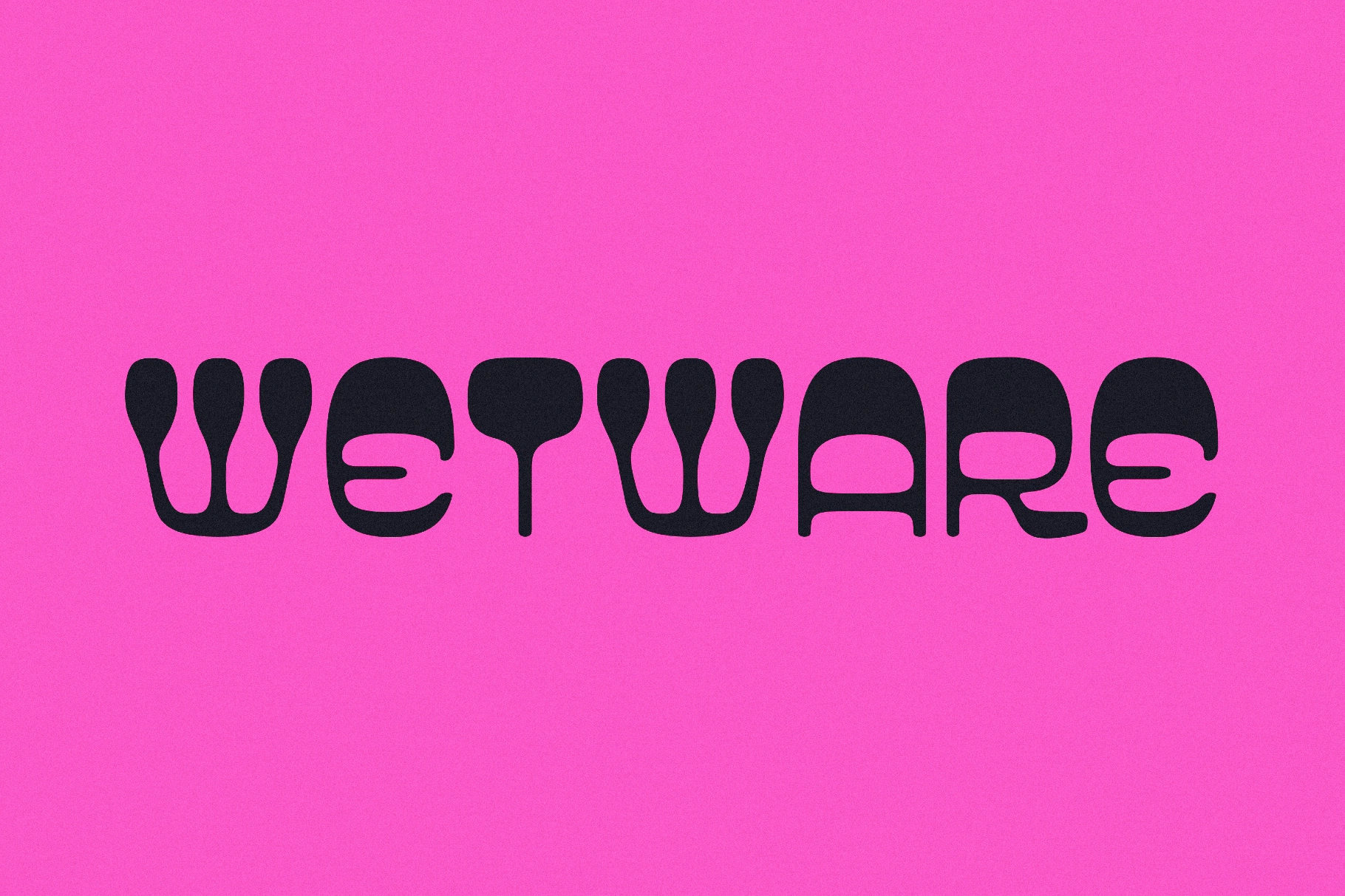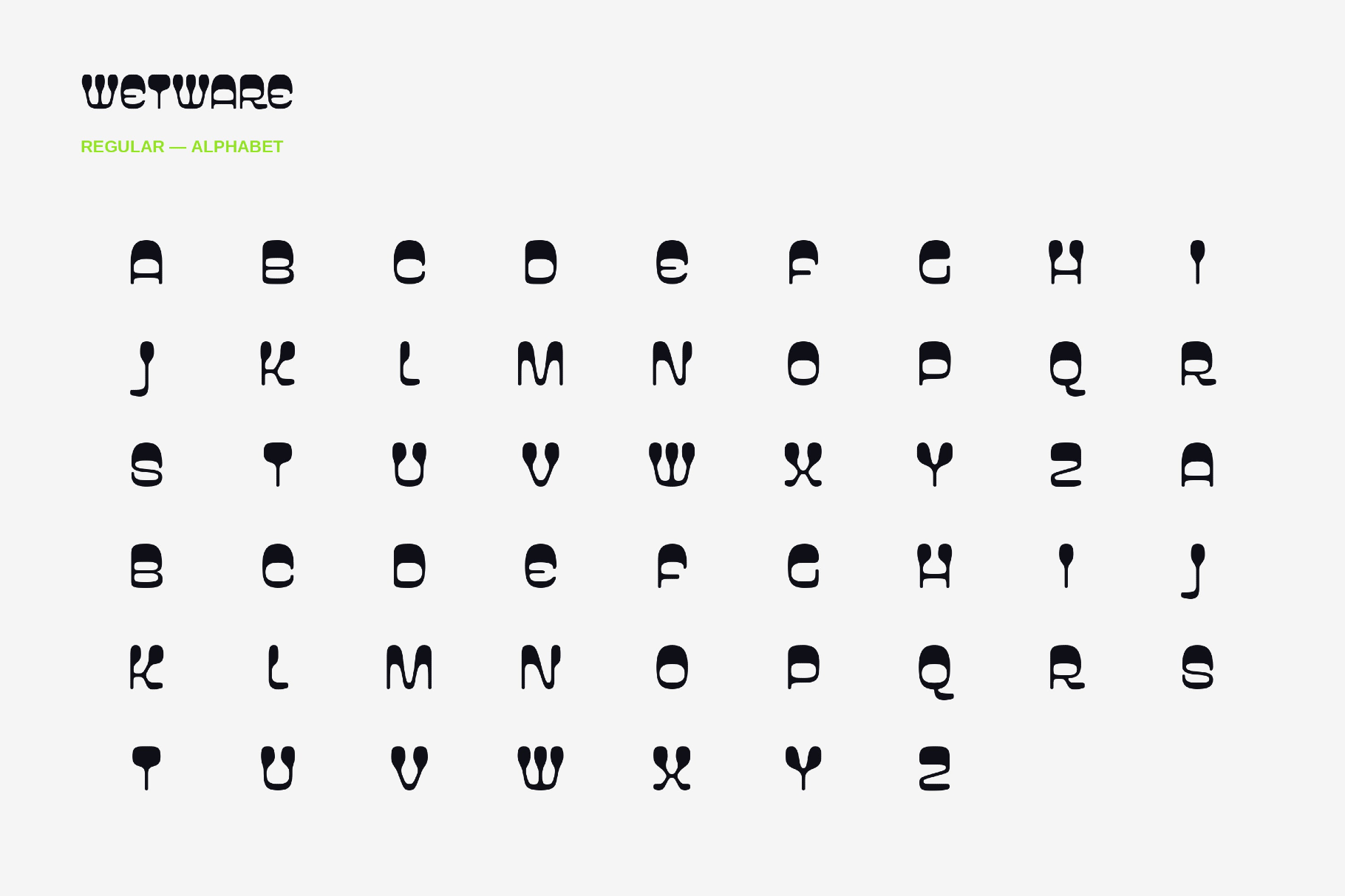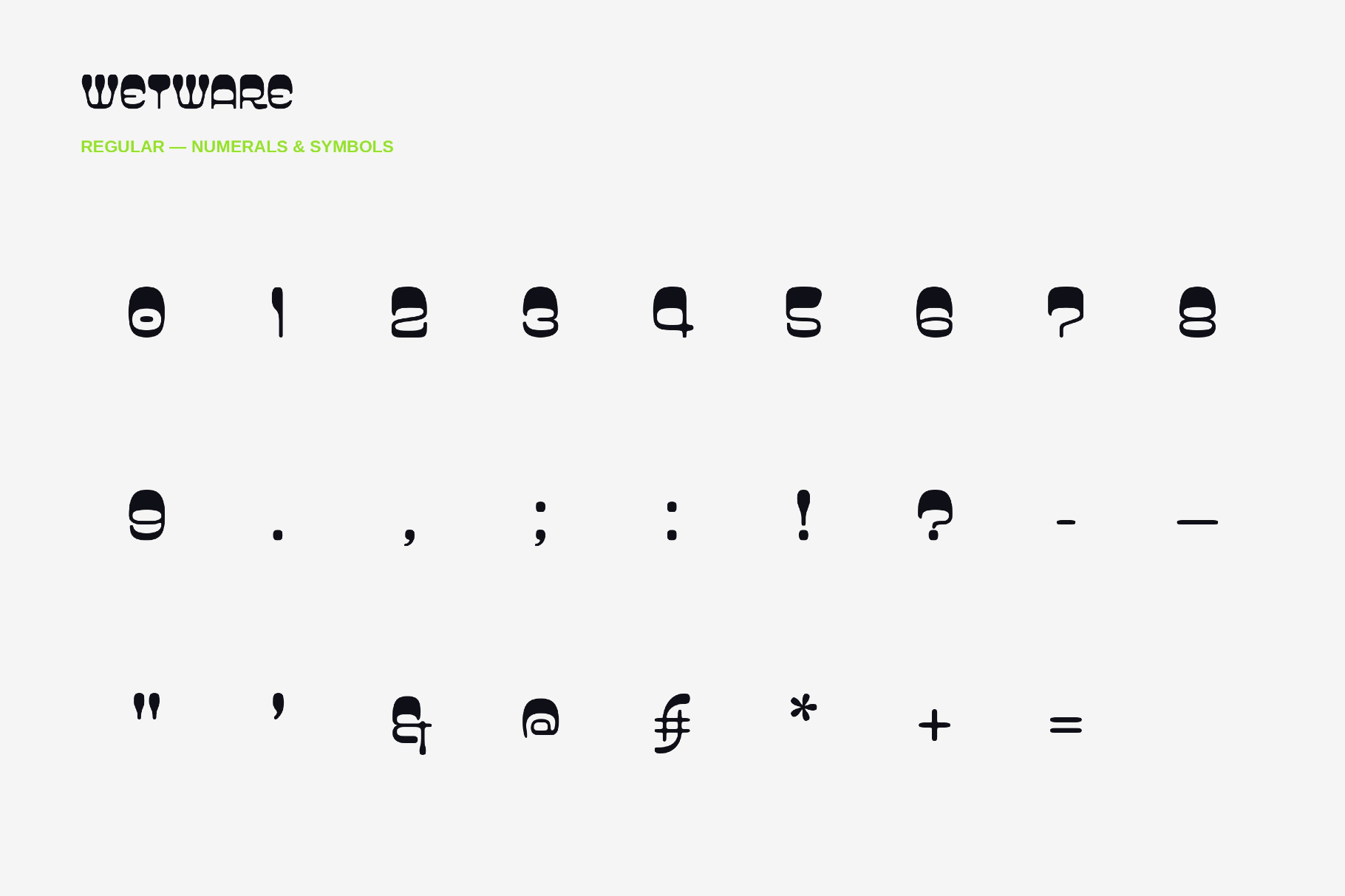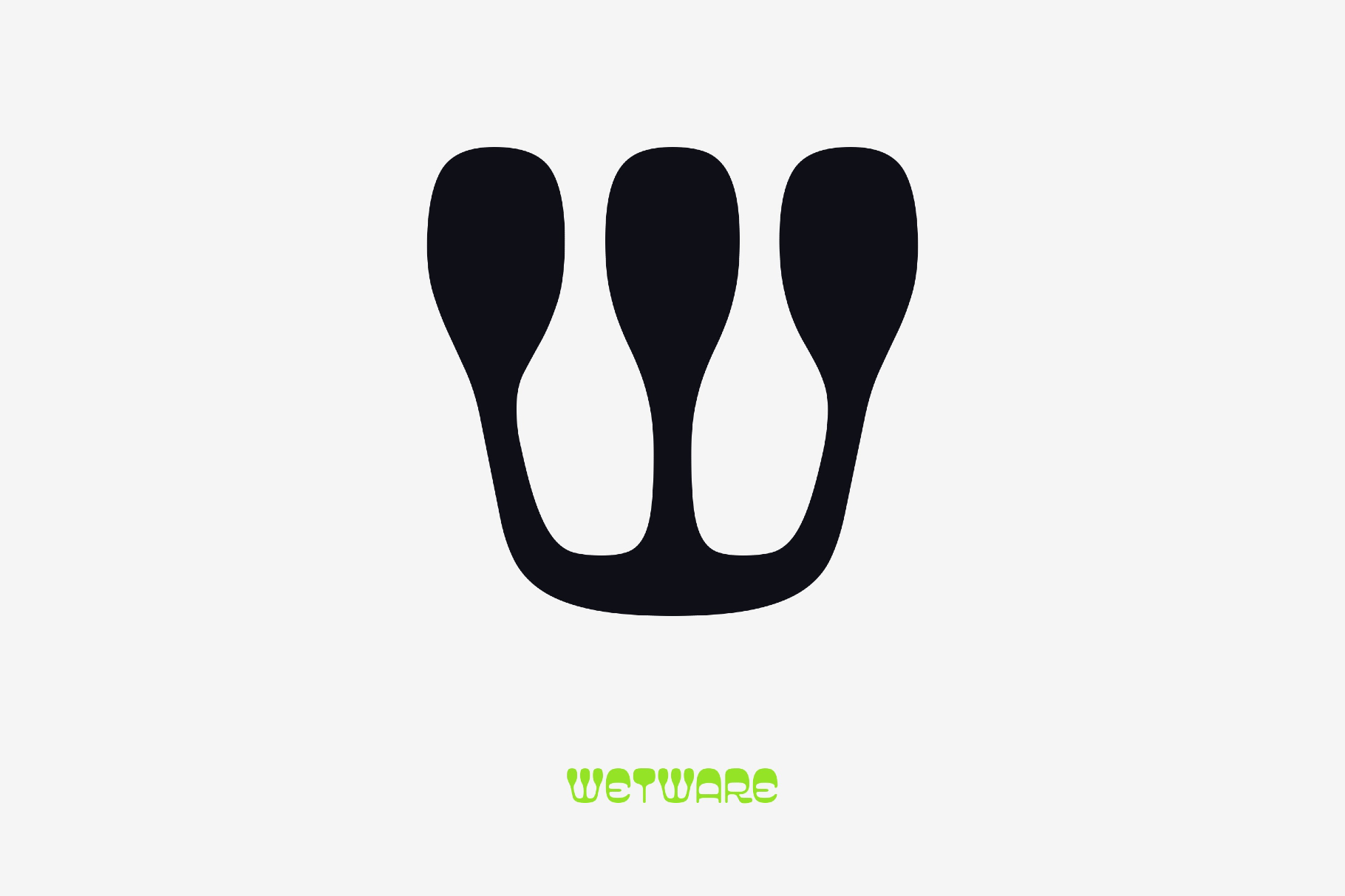
Wetware - Modern Groovy Font
wetware
Wetware builds its identity around techno-organic letterforms that look half-coded, half-grown. The fluid, groovy typography recalls biomechanical interfaces, industrial album sleeves, and dystopian sci-fi titles.
The font's biomechanical curves and synthetic rhythm make it a strong choice for game logos, electronic music covers, techwear graphics, poster art, sci-fi title design, headlines, display layouts, merch prints, identity system experimental branding, festival visuals, and social media drops.